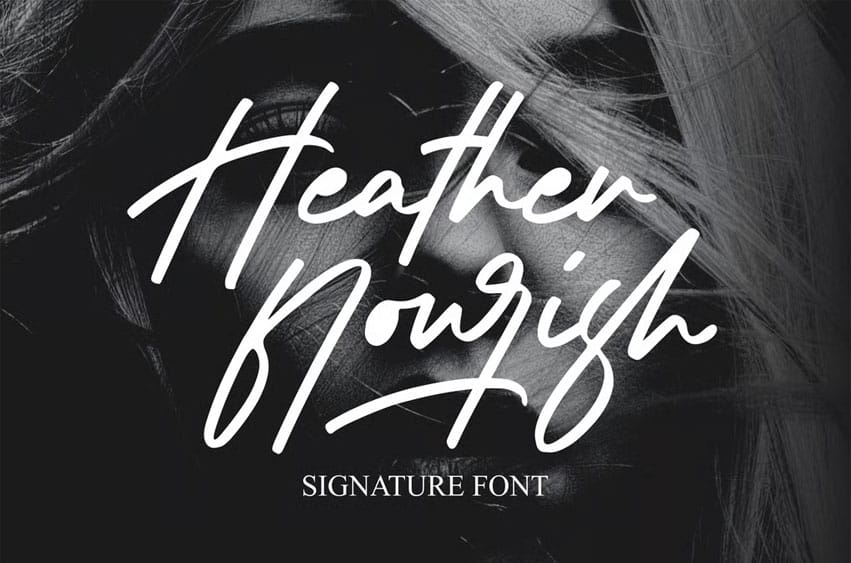
Heather Flourish Font is an elegant and expressive signature font crafted with natural pen strokes that bring a sense of confidence, sophistication, and authenticity to your designs. Its refined yet spontaneous flow makes it perfect for branding, photography, logos, personal signatures, invitations, and fashion labels.
The font embodies a stylish balance between strength and grace — bold enough for impactful headlines yet fluid enough for refined personal branding. Each curve is designed to emulate realistic handwriting, giving your work a genuine and premium feel.
Heather Flourish includes uppercase, lowercase, numbers, punctuation, ligatures, and multilingual support, and comes in OTF, TTF, and WOFF formats for both print and digital use. Whether you’re designing a high-end logo, elegant invitation, or artistic editorial, Heather Flourish elevates your typography with charisma and modern luxury.